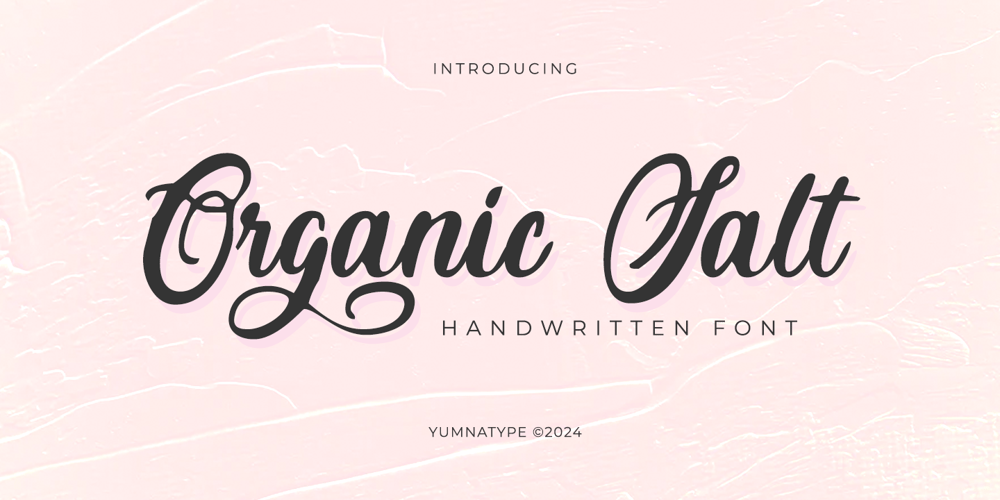
Organic Salt Font Family was designed by Donis Miftahudin and published by Yumna Type. Organic Salt contains 1 styles and family package options. Organic Salt is a captivating script font that beautifully emulates the natural fluidity and charm of handwriting. At its core, Organic Salt is designed to resemble casual handwriting, with each character flowing seamlessly into the next. The fairly thick weight of the font adds a comforting solidity, ensuring that every word feels grounded and substantial. One of the most enchanting characteristics of Organic Salt is the addition of swinging elements on select letters. These subtle flourishes add a playful and whimsical touch to the font, evoking the spontaneity and charm of handwritten notes. Despite its handwritten appearance, Organic Salt maintains excellent legibility, thanks to its consistent letter proportions and carefully crafted design. In addition, enjoy the features here.Features: Ligatures Stylistic Sets Multilingual Supports PUA Encoded Numerals and Punctuations Organic Salt fits in headlines, logos, posters, flyers, branding materials, greeting cards, print media, editorial layouts, and many more designs. Find out more ways to use this font by taking a look at the font preview.Thanks for purchasing our fonts. Hopefully, you have a great time using our font. Feel free to contact us anytime for further information or when you have trouble with the font. Thanks a lot and happy designing.